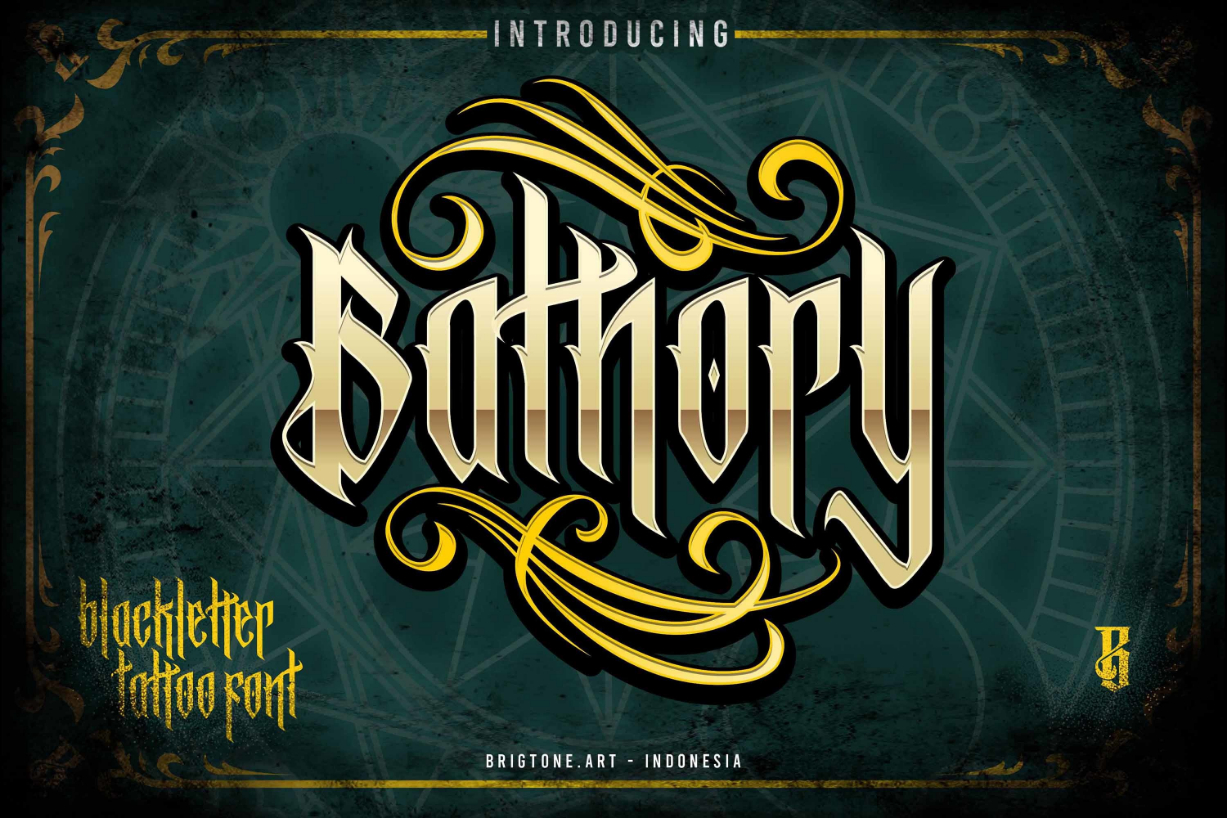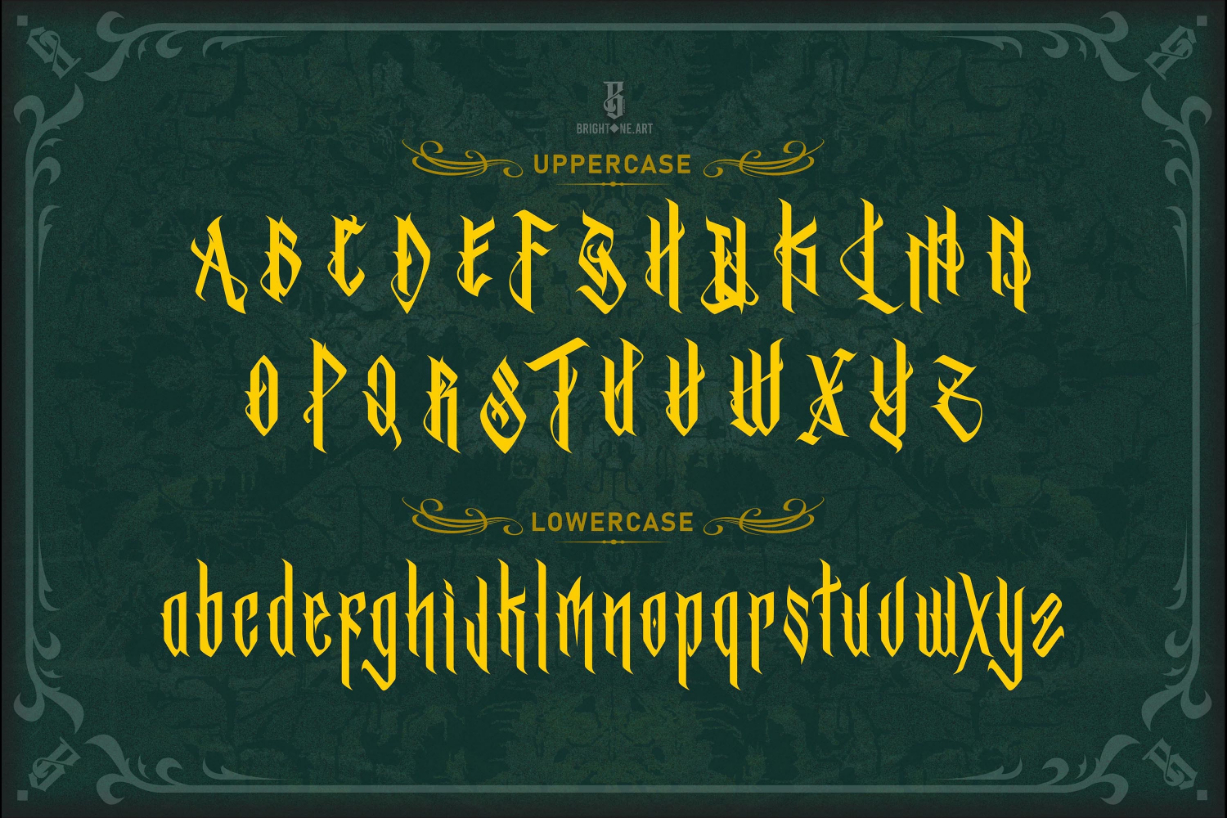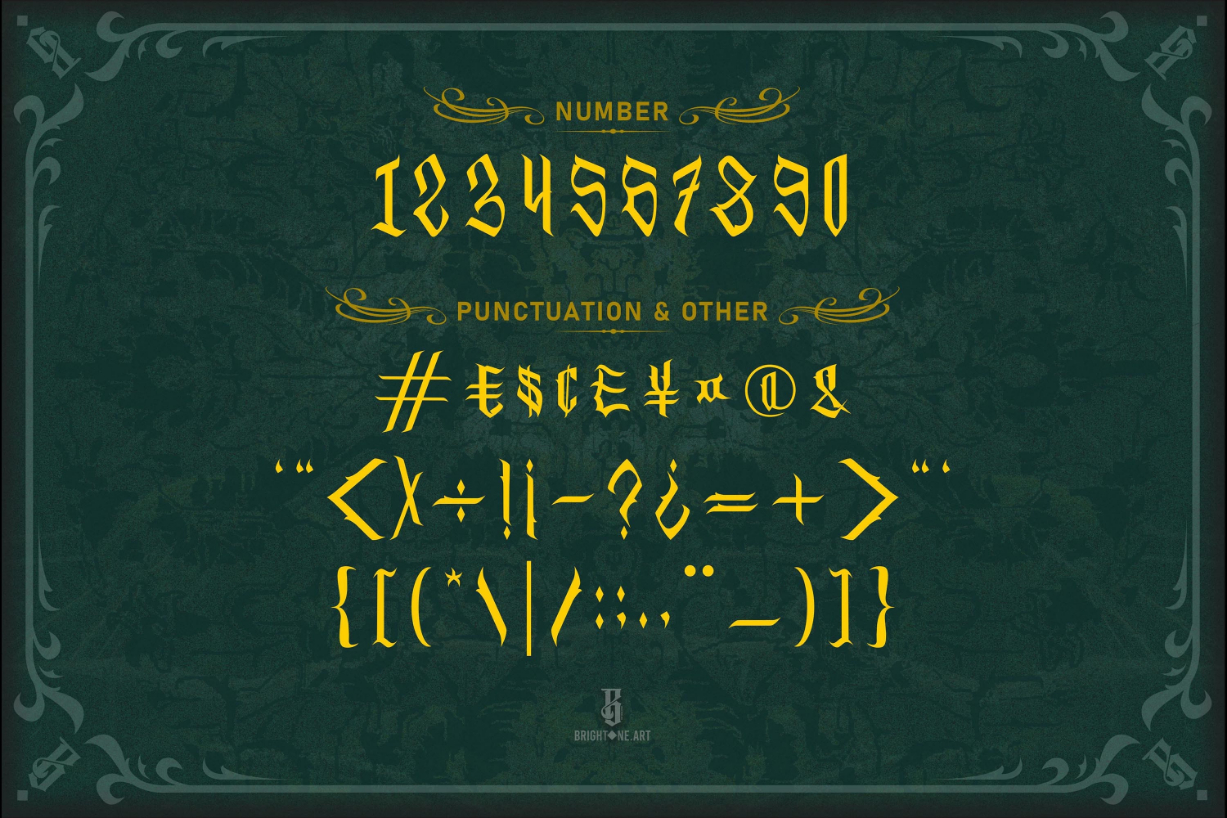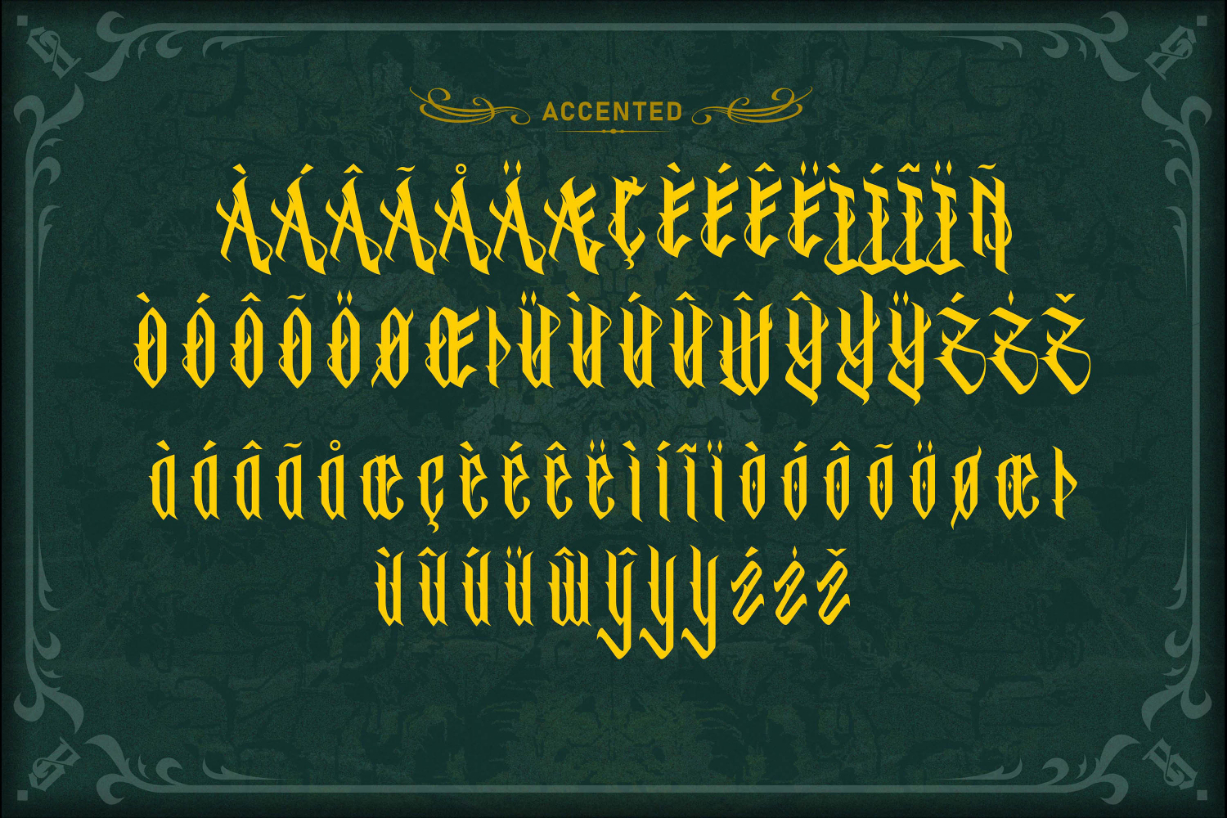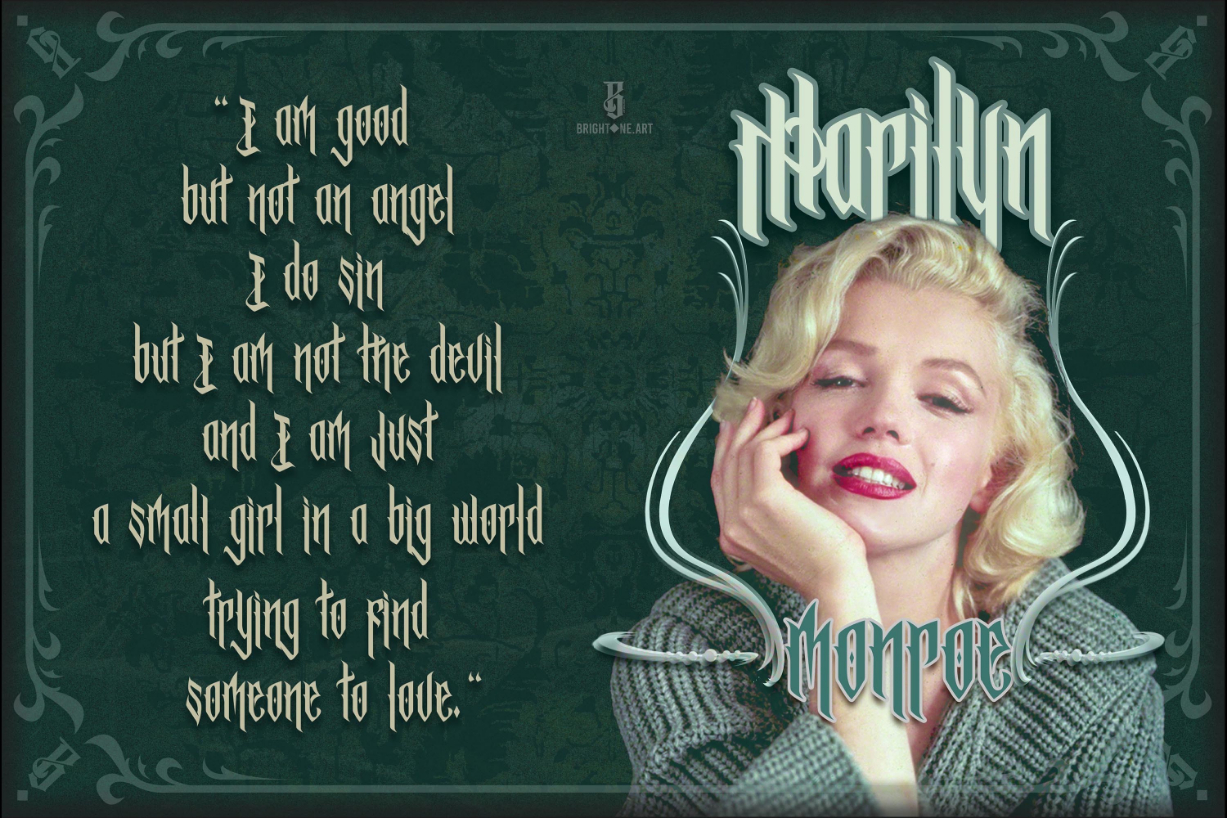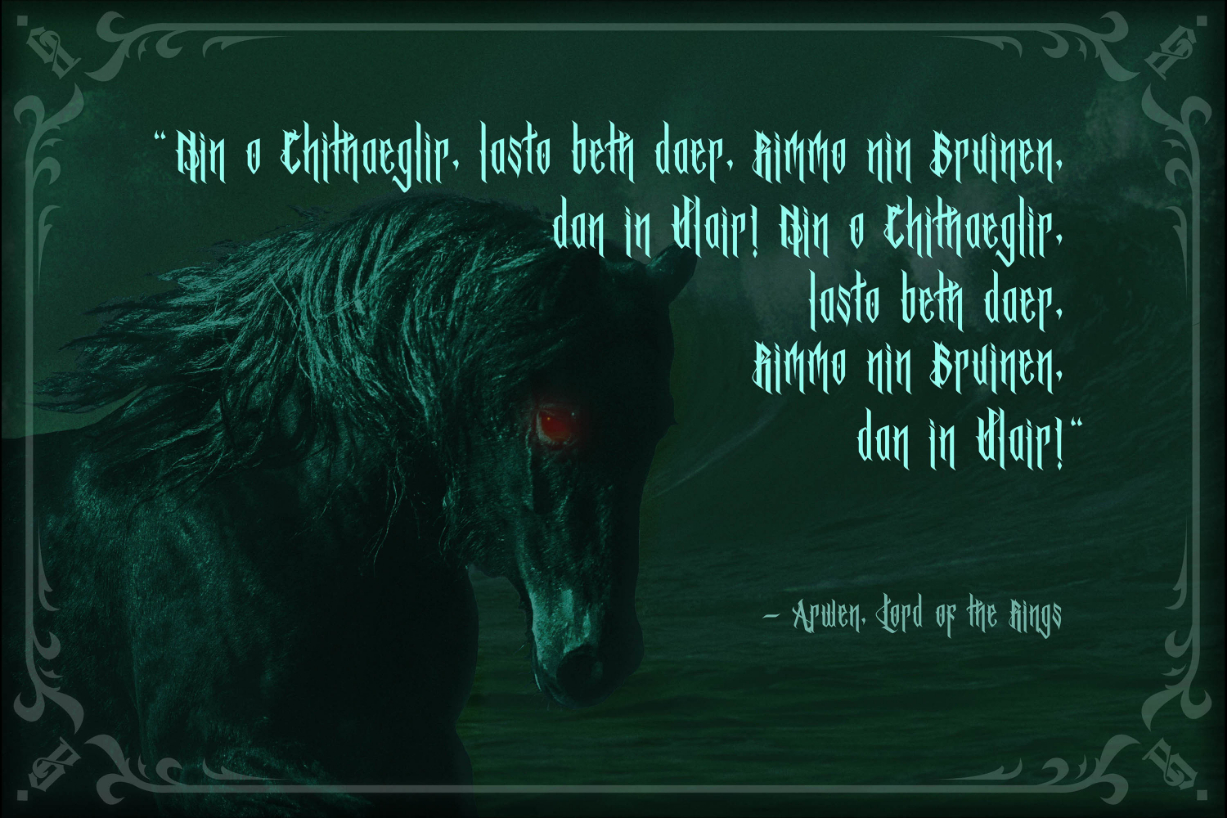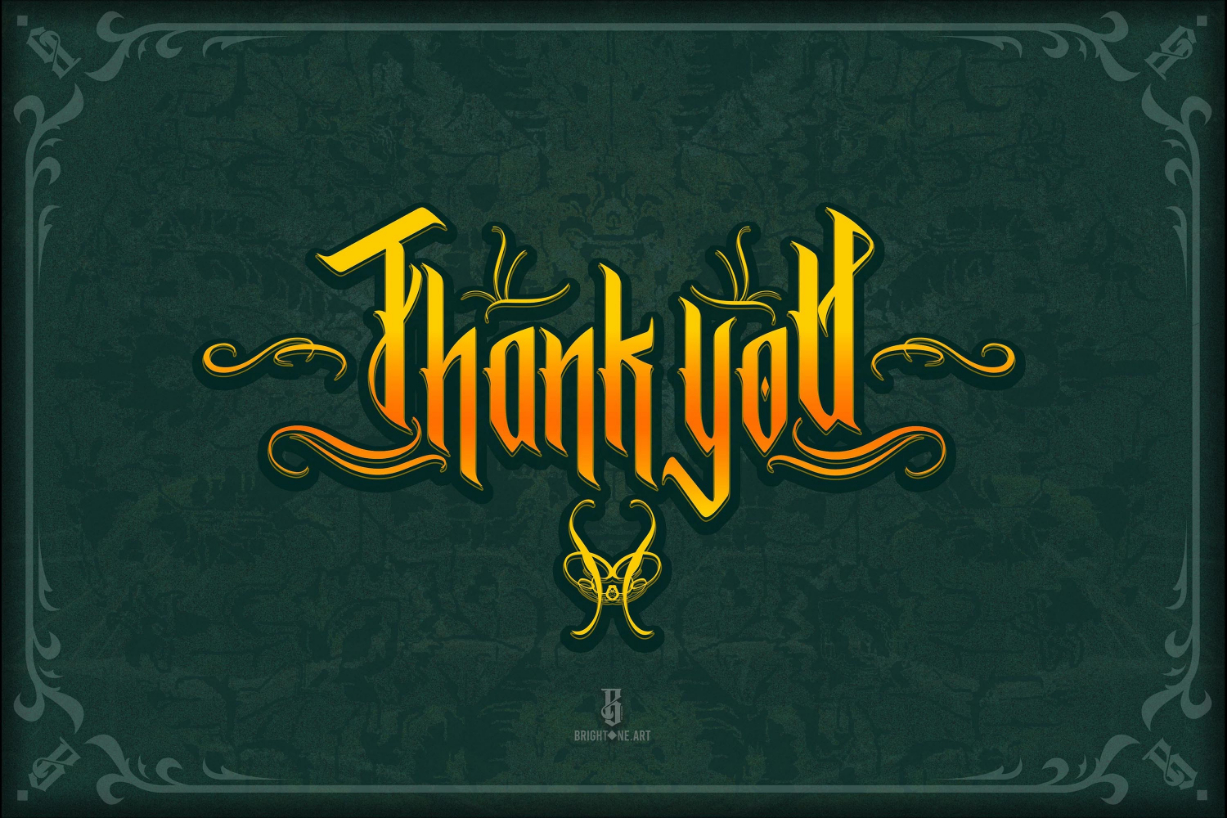
Bathory Font
About Bathory Font
Bathory is a bold and authentic blackletter font. Add this distinct and assertive font to each of your formal designs, and notice how they instantly look fascinating.